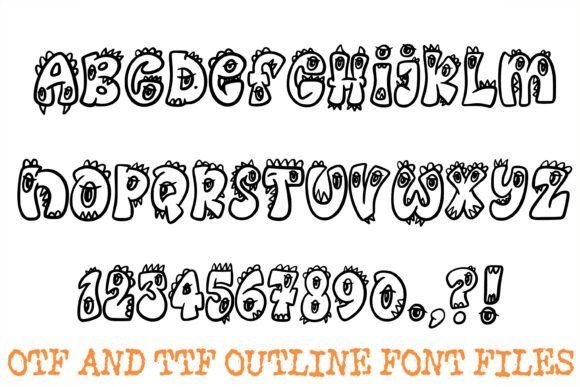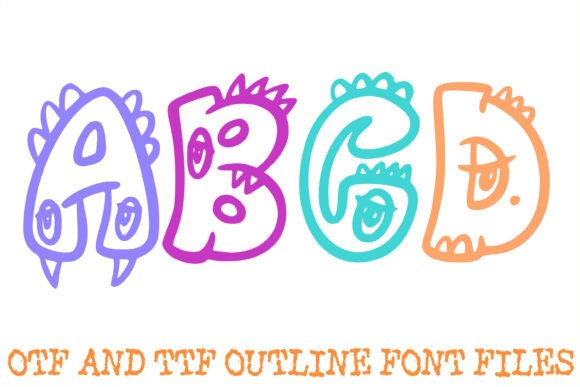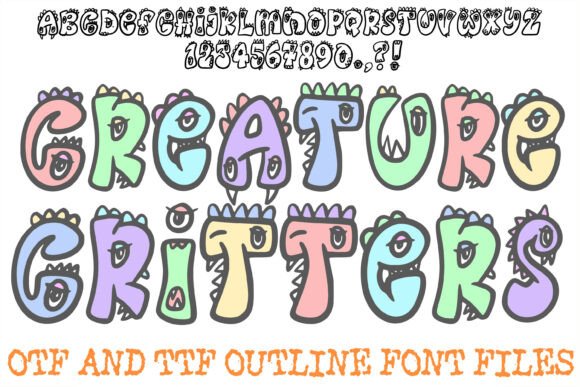
Unleash the Fun with Creature Critters Font: The Ultimate Display Typeface for Designers and Crafters
Are you tired of using the same old boring fonts for your designs? Look no further! The Creature Critters Font is here to add a dash of fun and personality to your projects. This delightful, monster-themed display typeface is perfect for designers and crafters who want to create eye-catching and whimsical designs that will capture the attention of kids and adults alike.
What Makes Creature Critters Font So Special?
The Creature Critters Font is a one-of-a-kind typeface that features bold, bubbly silhouettes decorated with googly eyes, sharp little fangs, and playful dinosaur spikes. Every character is meticulously hand-drawn to function as its own “lurking” creature, giving your text a sense of mischief and personality that is impossible to ignore. Whether you’re creating custom stickers for a laptop or designing a title for a children’s book, this font is sure to bring a smile to everyone’s face.
The Creature Critters Font is incredibly versatile and can be used for a wide range of design projects. Here are some ideas to get you started:
- Kids’ birthday invitations: Create custom invitations that will make the birthday child’s friends excited for the party.
- Spooky-but-cute Halloween graphics: Add a touch of whimsy to your Halloween designs with this font’s playful monster characters.
- Gaming channel logos: Give your gaming channel a fun and quirky logo that will stand out from the crowd.
- Whimsical apparel designs: Create fun and playful designs for t-shirts, hoodies, and other apparel items.
Why Choose Creature Critters Font?
There are many reasons why the Creature Critters Font is the ultimate choice for designers and crafters. Here are a few:
- Unique and eye-catching: This font is sure to grab attention with its bold and playful designs.
- Hand-drawn with love: Each character is meticulously hand-drawn to ensure a professional, artisan-sketched look.
- Perfect for kids and adults: The Creature Critters Font is designed to appeal to both kids and adults, making it perfect for a wide range of design projects.
Tips for Using Creature Critters Font
Here are a few tips for getting the most out of the Creature Critters Font:
- Experiment with different colors: Try out different color combinations to bring your designs to life.
- Play with font sizes: Experiment with different font sizes to create visual interest and hierarchy in your designs.
- Add textures and patterns: Add textures and patterns to your designs to give them an extra layer of depth and interest.
The Creature Critters Font is a must-have for designers and crafters who want to add a touch of fun and personality to their projects. With its bold, bubbly silhouettes and playful monster characters, this font is sure to delight kids and adults alike. Whether you’re creating custom stickers, designing a title for a children’s book, or simply want to add some whimsy to your designs, the Creature Critters Font is the ultimate choice. So why wait? Download the Creature Critters Font today and start unleashing the fun in your designs!